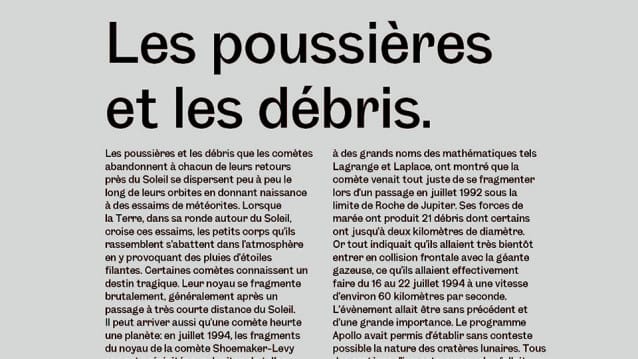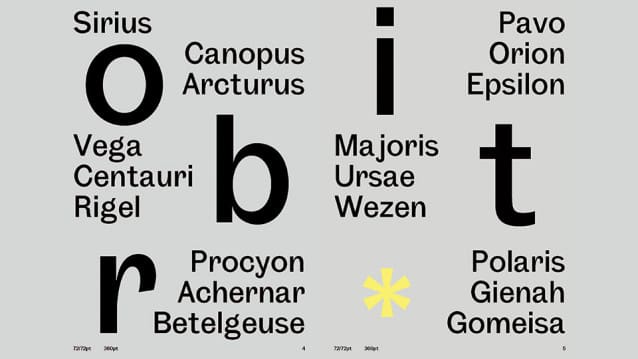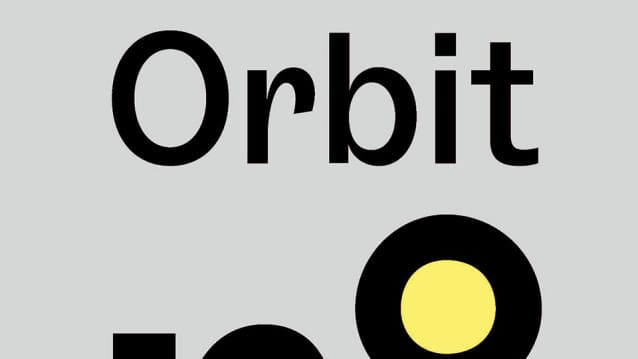
Orbit Sans Font
Orbit Sans Font is a sans serif font, a revival of Grotesque n°6 typeface from Stephenson Blake’s Grotesque series, released in 1880–82. The font is carefully crafted to capture the essence of the original design while infusing it with modern sophistication.
Orbit font retains the distinctive characteristics, including the clean lines, balanced proportions, and subtle geometric shapes. With its versatility and timeless appeal, the font is the perfect choice for designers seeking a sophisticated and reliable sans-serif typeface.